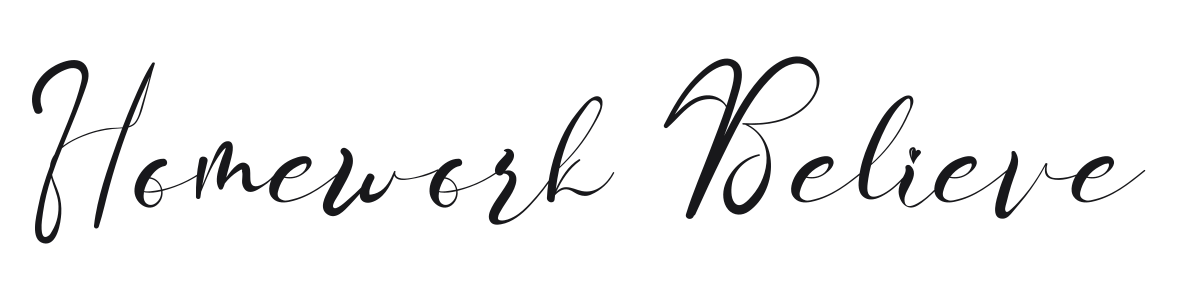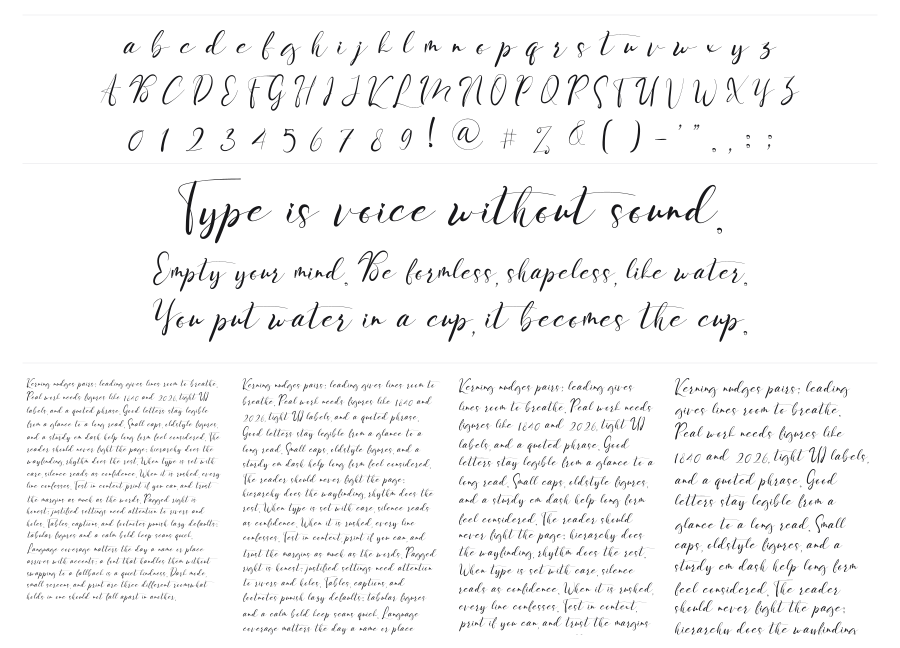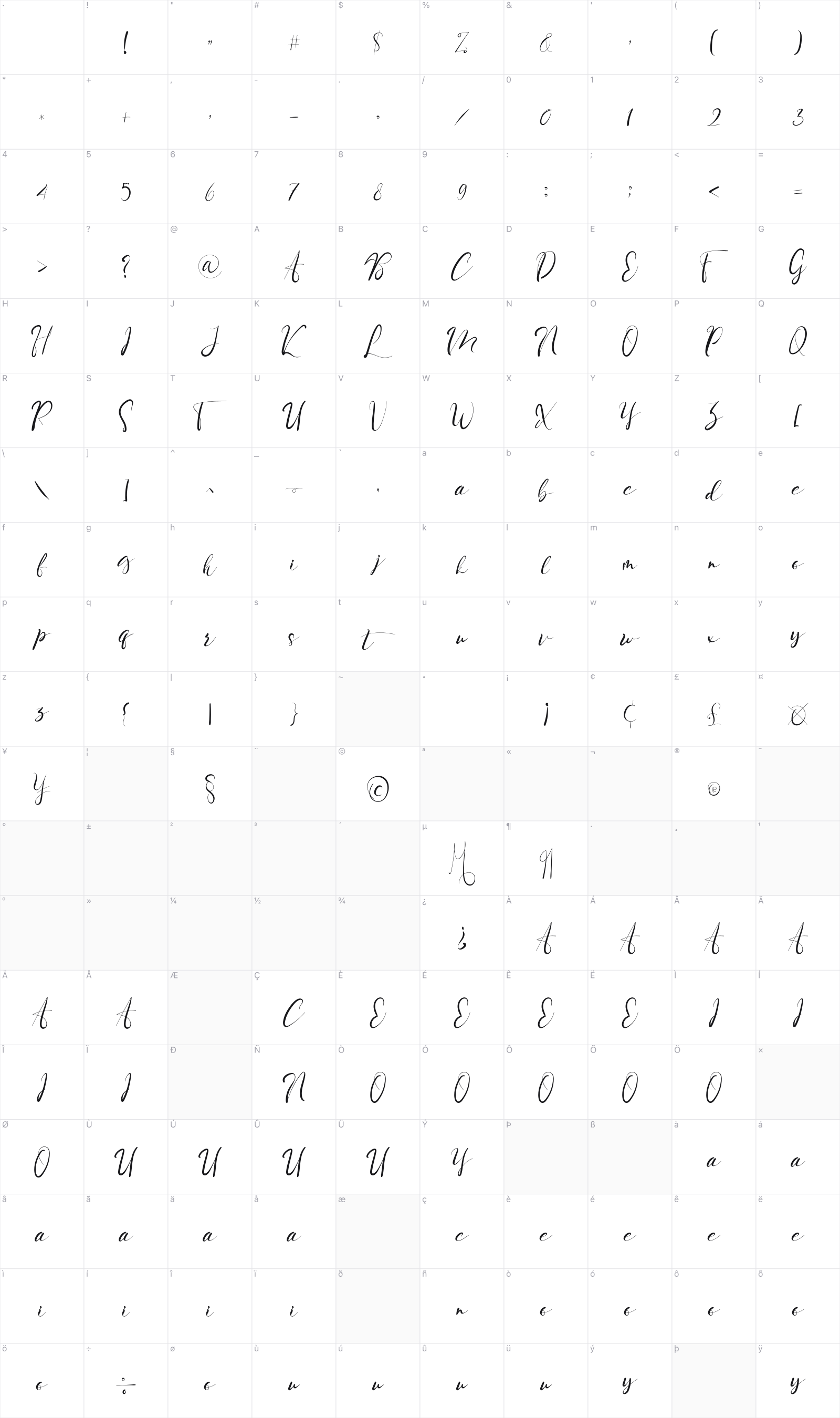
Homework Believe
Homework Believe is a flowing contemporary casual script built on the rhythm of modern calligraphy. Thick downstrokes taper into hairline upstrokes with dramatic swashes on ascenders and descenders, giving every word an airy, expressive quality. It suits wedding stationery, boutique branding, and anything that calls for a handwritten warmth with a polished finish.